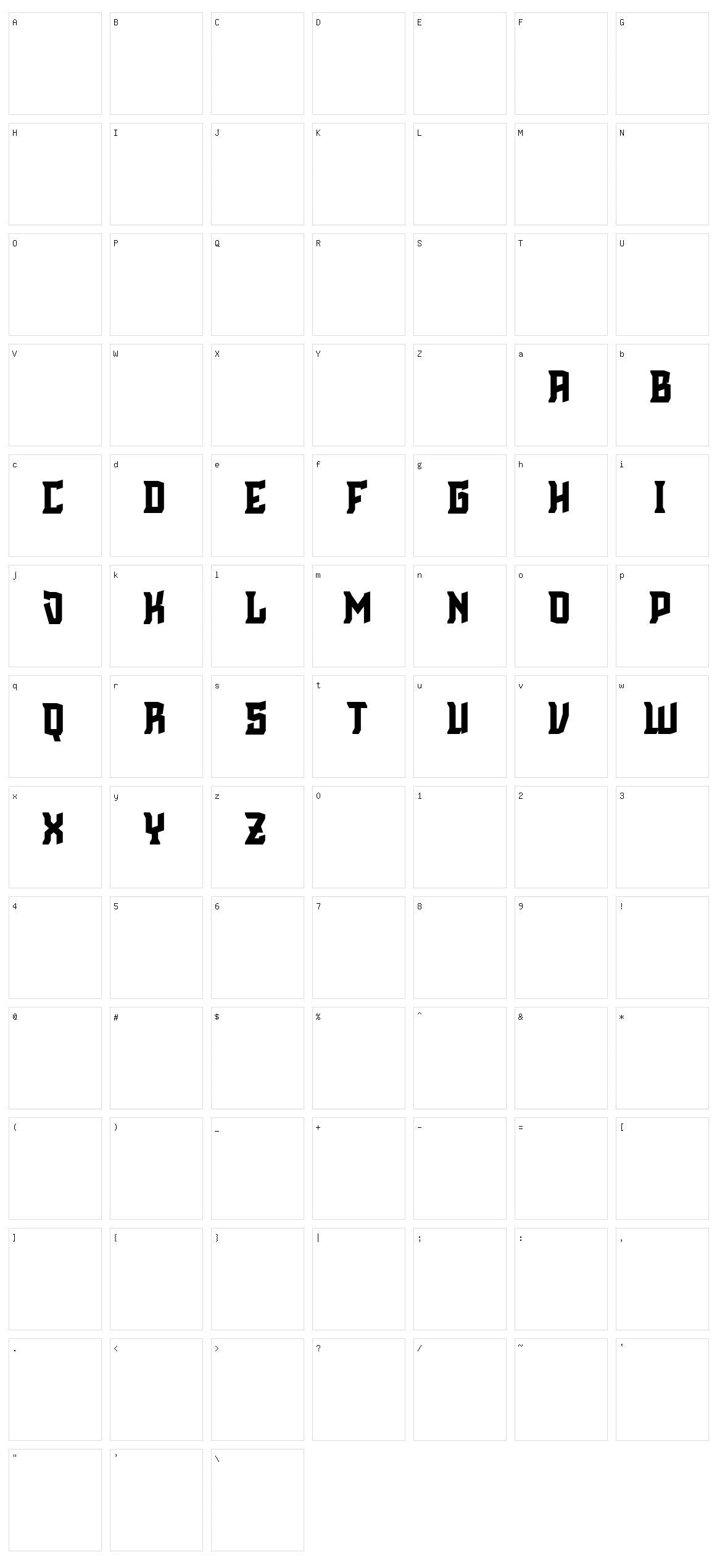
Cinematic English
Description: The free font Cinematic English is carefully designed by Mirco Zett, showcasing a thoughtful balance of creativity and usability and belongs to the Gothic font family. When you download the ZIP file, it contains only 6.31 KB of font files, making it lightweight and quick to download. Please review the license details below to understand permitted usage and distribution rights. If license information is not available, we recommend using this font for personal projects only or contacting the author directly for commercial usage permissions.